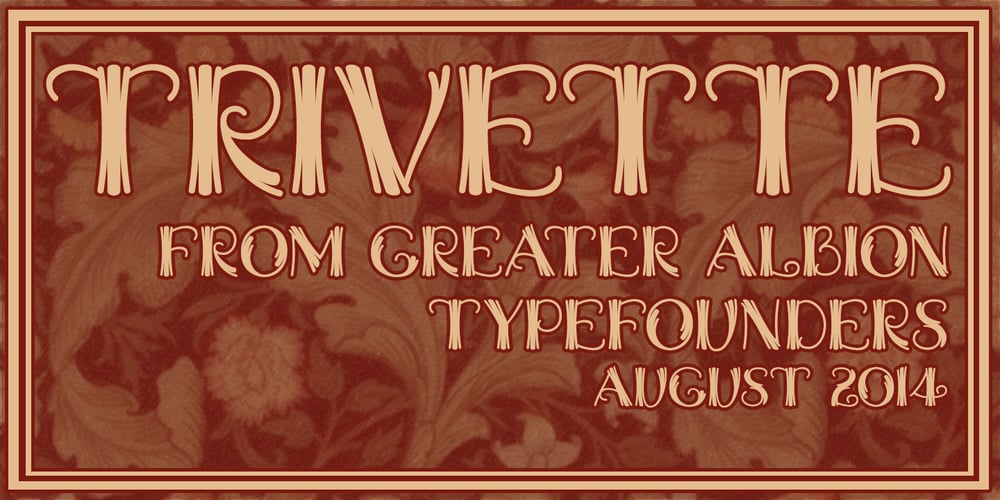
Trivette Font Family was designed by Paul James Lloyd and published by Greater Albion Typefounders. Trivette contains 1 styles and family package options. Trivette is an ‘All Capitals’ calligraphic display face, where all upright strokes are rendered as curves and where everything approaching the vertical are rendered in threes. That’s probably as clear as mud, but the results combine charm and legibility with a decorative period air. Recommended for poster work where a sense of dignified fun is important.